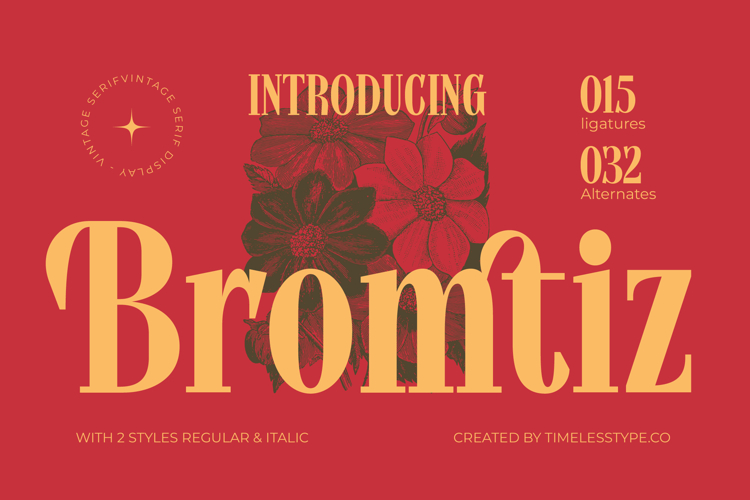
Bromtiz - Vintage Serif Display Font
Unlock a world of timeless elegance with Bromtiz - Vintage Serif Display Font, a meticulously crafted typeface designed to infuse your projects with sophistication and vintage charm. Its distinctive high-contrast letterforms and refined serifs command attention, making it an ideal choice for designs that demand both impact and a classic aesthetic. Bromtiz - Vintage Serif Display Font effortlessly combines historical grace with contemporary appeal, ensuring your message is delivered with undeniable class.
Elevate your typography with the rich design versatility offered by Bromtiz - Vintage Serif Display Font. Featuring an impressive collection of 015 ligatures and 032 alternates, this font provides designers with unparalleled creative freedom to craft truly unique typographic expressions. These stylistic features allow for customized lettering, adding a bespoke touch that transforms ordinary text into extraordinary art, perfect for distinctive branding and editorial layouts.